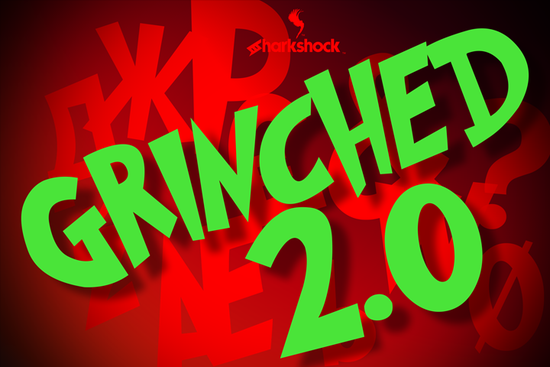
The holiday design season arrives quickly, and having the right typography ready can save you hours of work. If you are looking for a typeface that captures the festive spirit without feeling overly cliché, the Grinched 2.0 Font is a strong contender. This display typeface is built specifically for Christmas projects, offering a playful yet readable style that works well on various materials. Whether you are creating print-on-demand products or handmade cards, having a dedicated holiday font in your library simplifies the creative process.
Designers often struggle to find fonts that balance personality with legibility. This typeface manages to offer character while remaining clear enough for small text on tags or large text on apparel. It includes essential features like European accents, ligatures, and support for Cyrillic and Greek characters. This multilingual support is crucial if you sell to international customers or want to add unique flair to your designs using different alphabets. You do not need to worry about missing special characters when customizing names or phrases for clients.
What Makes This Font Suitable for Holiday Projects?
Christmas designs often rely on specific visual cues to convey warmth and excitement. The structure of this font mimics hand-lettered styles that feel personal and inviting. Unlike standard serif or sans-serif options, it brings a thematic element to the table immediately. When you pair it with solid colors like deep reds, forest greens, or gold, the typography stands out without needing excessive decoration.
For those who enjoy creating physical products, the weight of the letters holds up well during printing. It is thick enough to be cut on vinyl machines for heat transfers but detailed enough to look crisp on digital mockups. If you are comparing it to other seasonal options, you might consider how it fits alongside welcome christmas styles that focus on softer, more traditional holiday vibes. While those options are great for formal invitations, this typeface leans slightly more towards fun and modern applications.
Best Use Cases for Sellers and Crafters
Understanding where to apply this font helps maximize its value. It is not just for digital graphics; its robust design makes it versatile for physical goods. Here are some practical ways to use it in your business:
- Apparel Design: The bold strokes work perfectly on t-shirts and hoodies. It remains readable even when printed on textured fabrics.
- Greeting Cards: Use it for the main headline on cards. The ligatures add a professional touch that standard keyboards cannot replicate.
- Home Decor: Create signs or pillow covers. The playful nature fits well in cozy living spaces.
- Social Media Graphics: Use it for Instagram stories or Pinterest pins to announce holiday sales or promotions.
If you need something heavier for main headlines on shirts, you might look at strong bubble options for contrast. However, for a balance of whimsy and structure, this font often requires less manipulation to look finished. You can save time on kerning and spacing, allowing you to focus on layout and color theory.
How to Pair It With Other Typography
Rarely does a design rely on a single font. Mixing typefaces creates visual hierarchy and keeps the viewer interested. Since this font has a distinct personality, it pairs best with simpler counterparts. A clean sans-serif works well for body text, ensuring the message is easy to read. Alternatively, a classic serif can add a touch of elegance to balance the playfulness.
For script lovers who want to add a signature touch, exploring flowing homegoing scripts can provide a nice contrast. You might use the script for a name or a specific word like "Joy" while keeping the main message in this display font. If you are planning designs for next year, remember that not all projects are seasonal. Having a summer alternative like summer laguna tropic vibes in your toolkit ensures you are ready for every season without scrambling for new assets.
When aiming for a more traditional or literary look, consider pairing it with classic cormorant garamond pairings. The serif elegance grounds the playful nature of the holiday font, creating a sophisticated design suitable for high-end packaging or boutique labels. This combination works particularly well for wine labels or gourmet food gifts during the holidays.